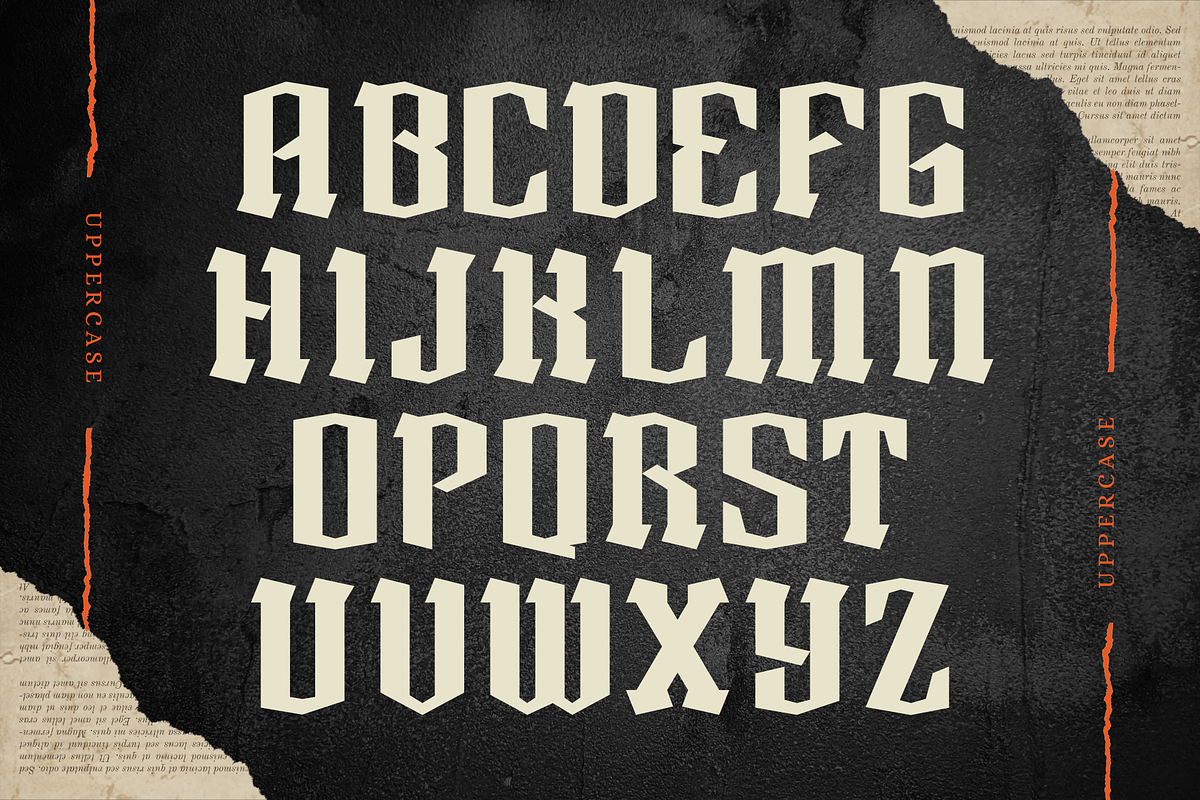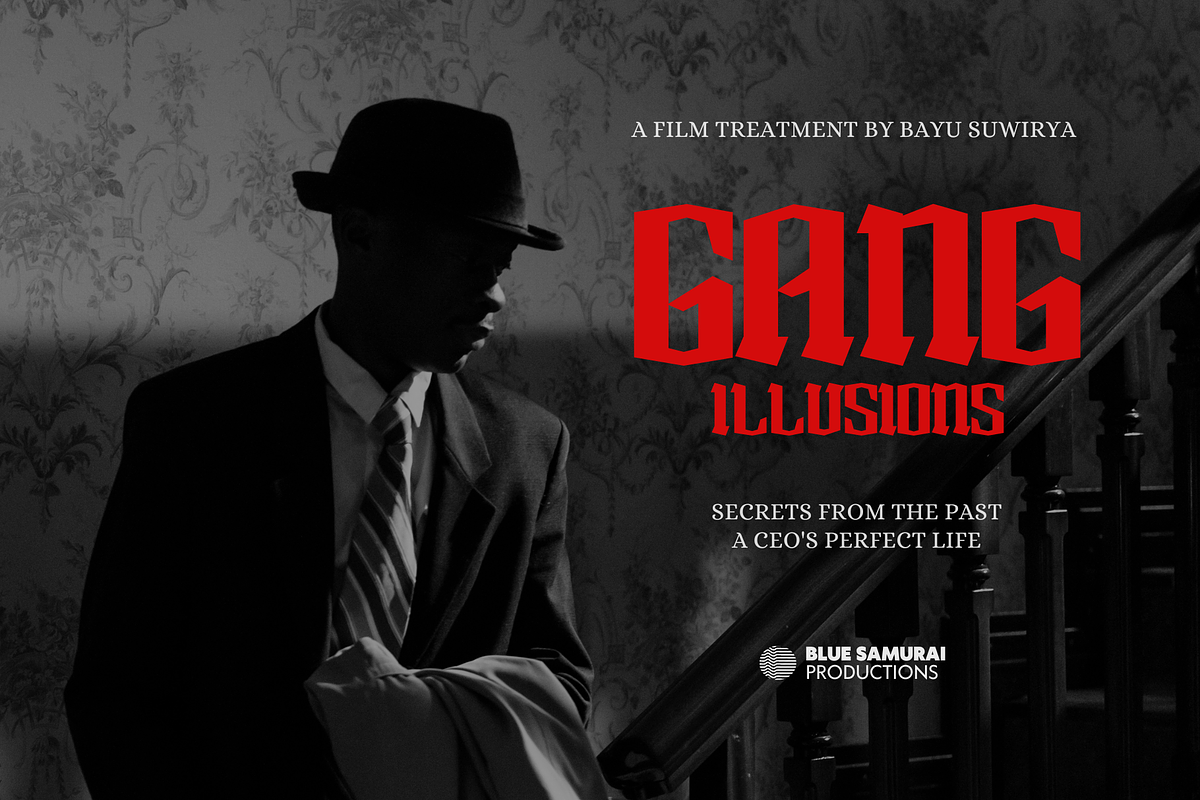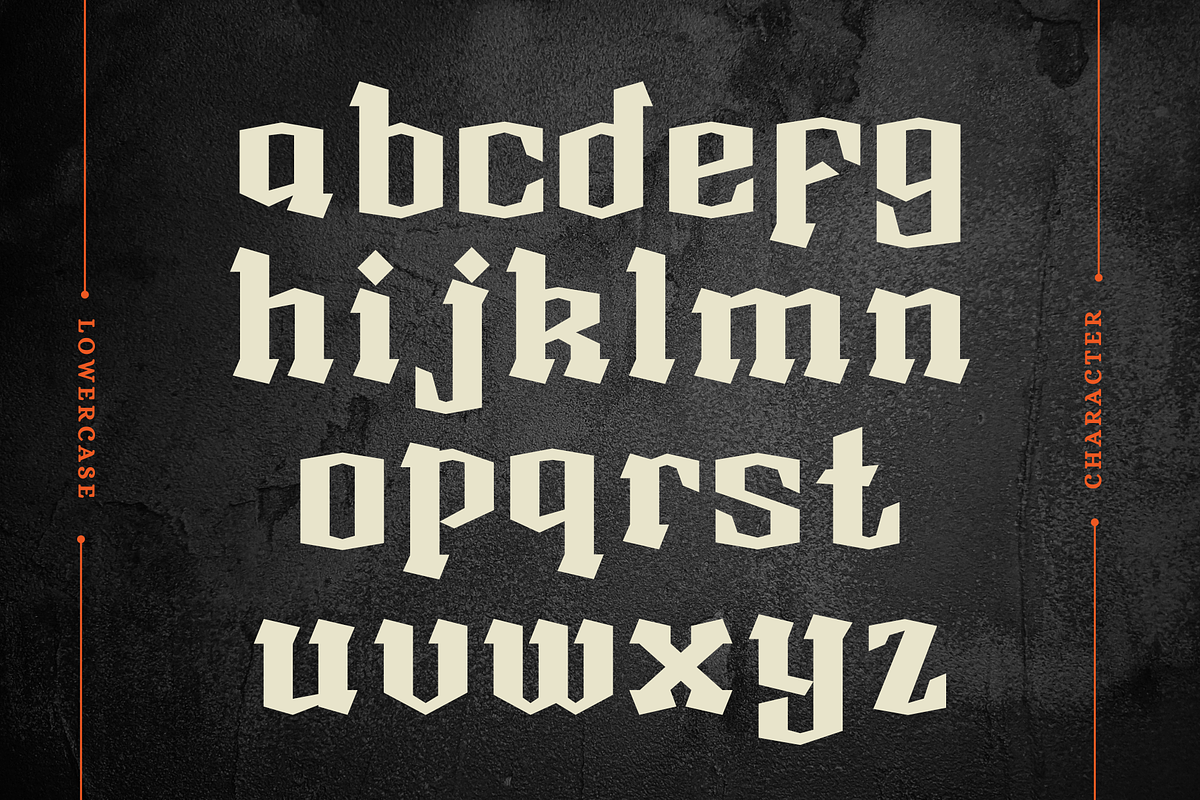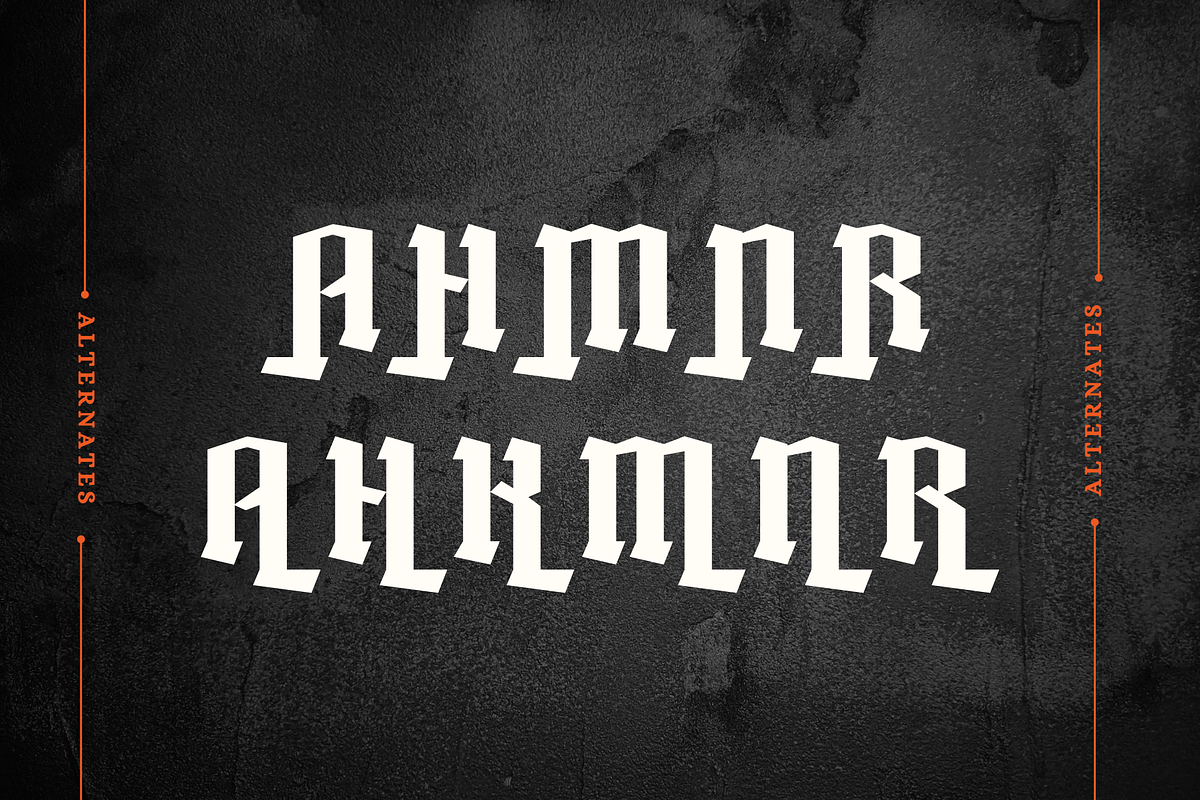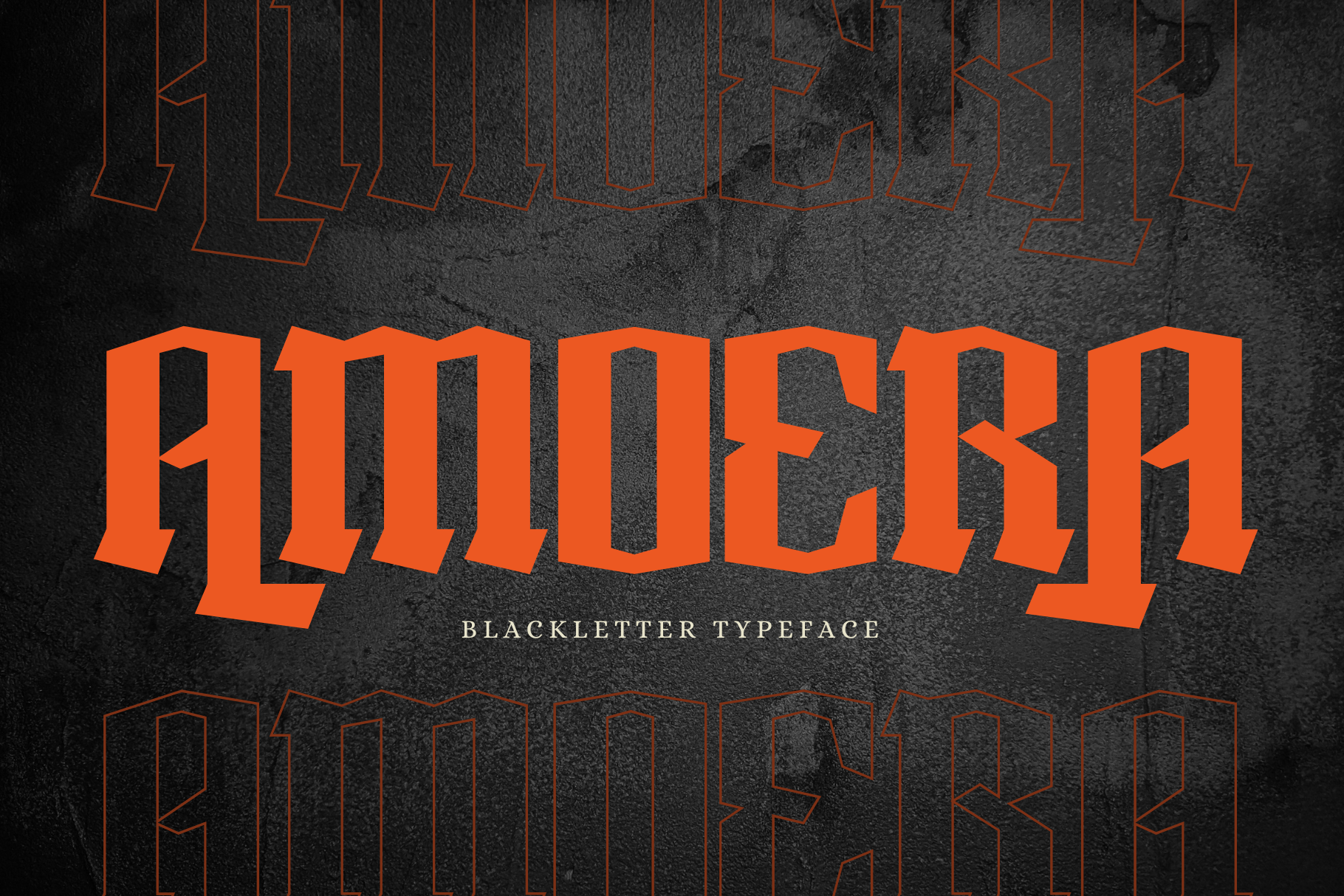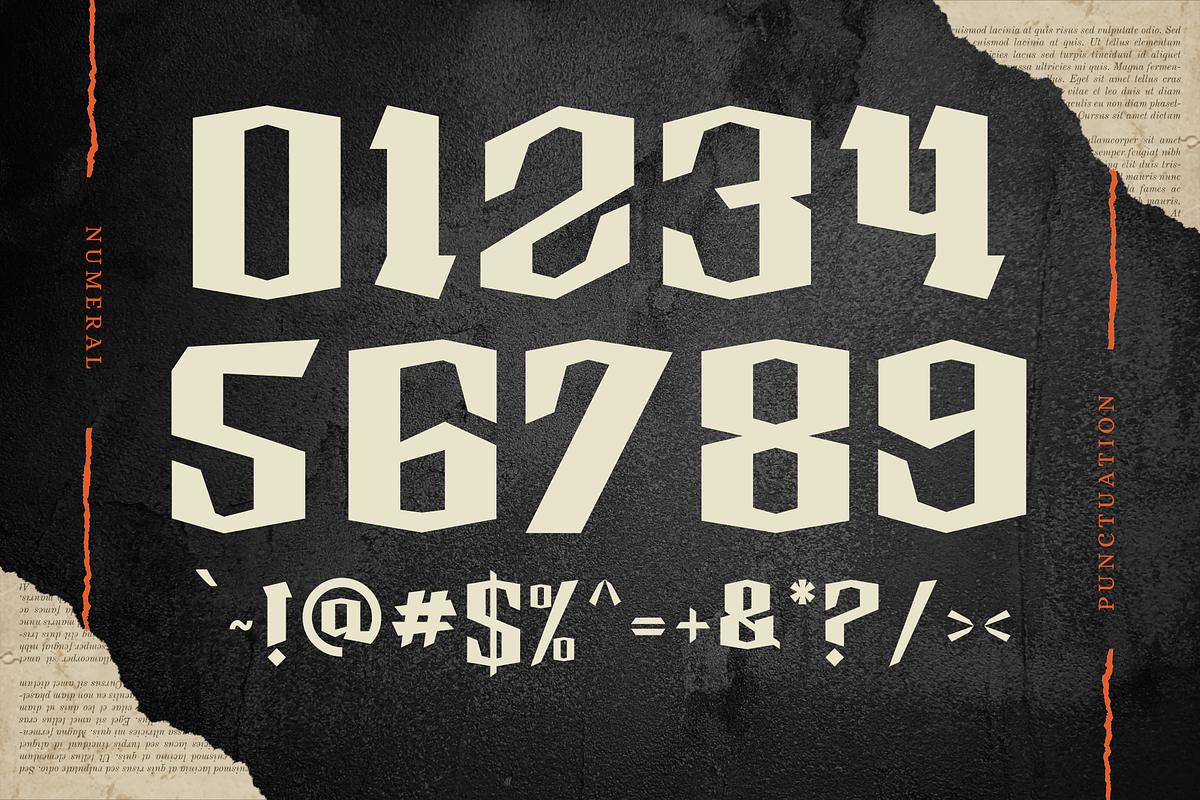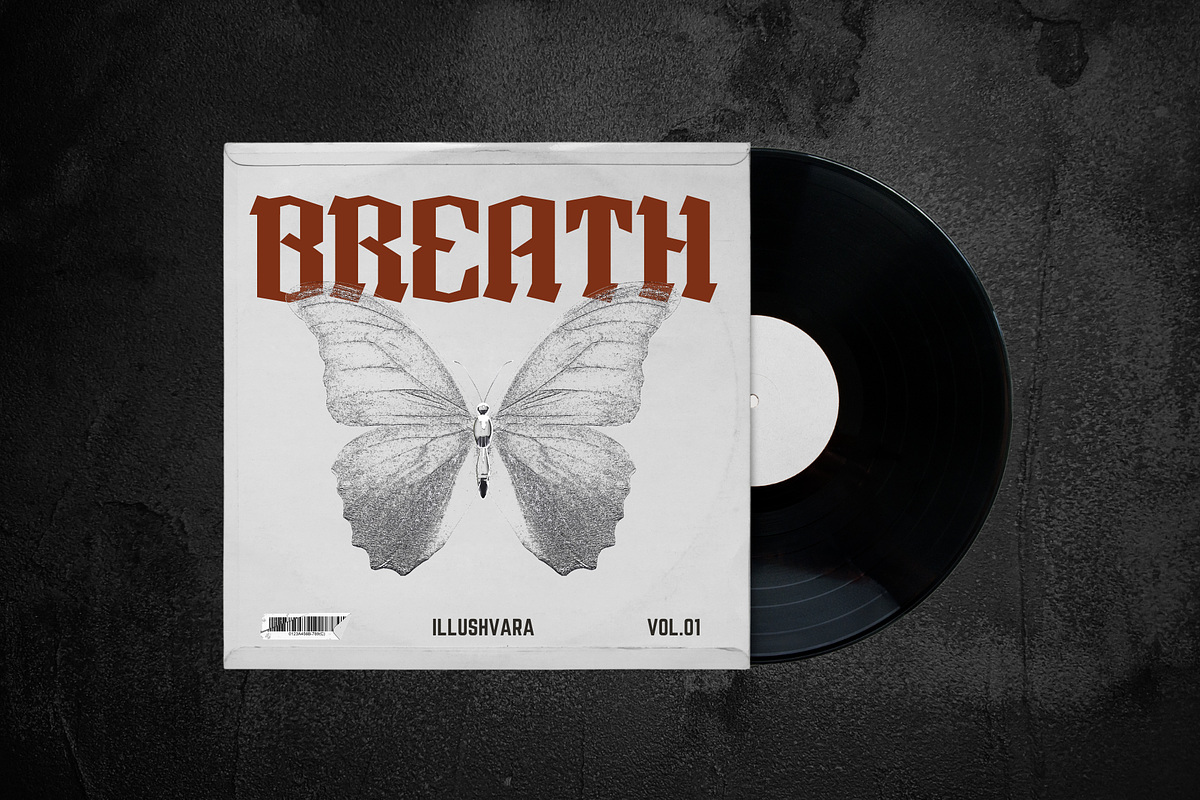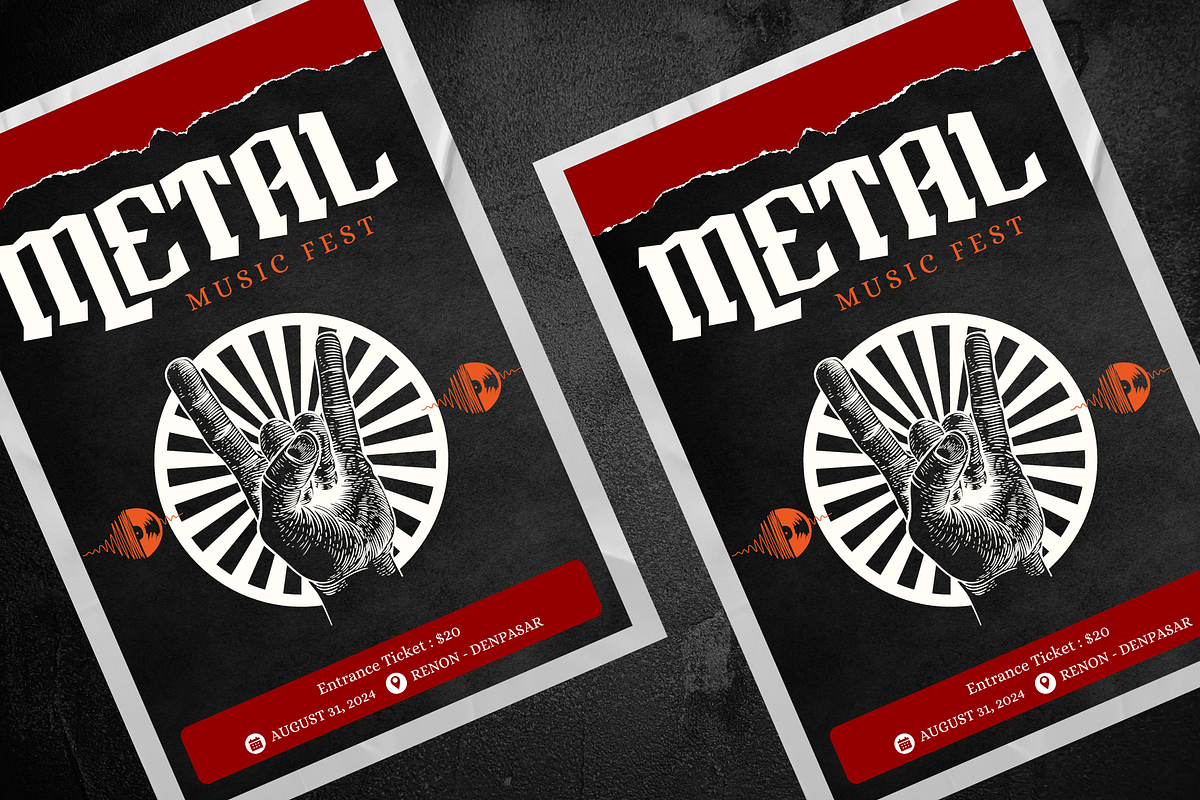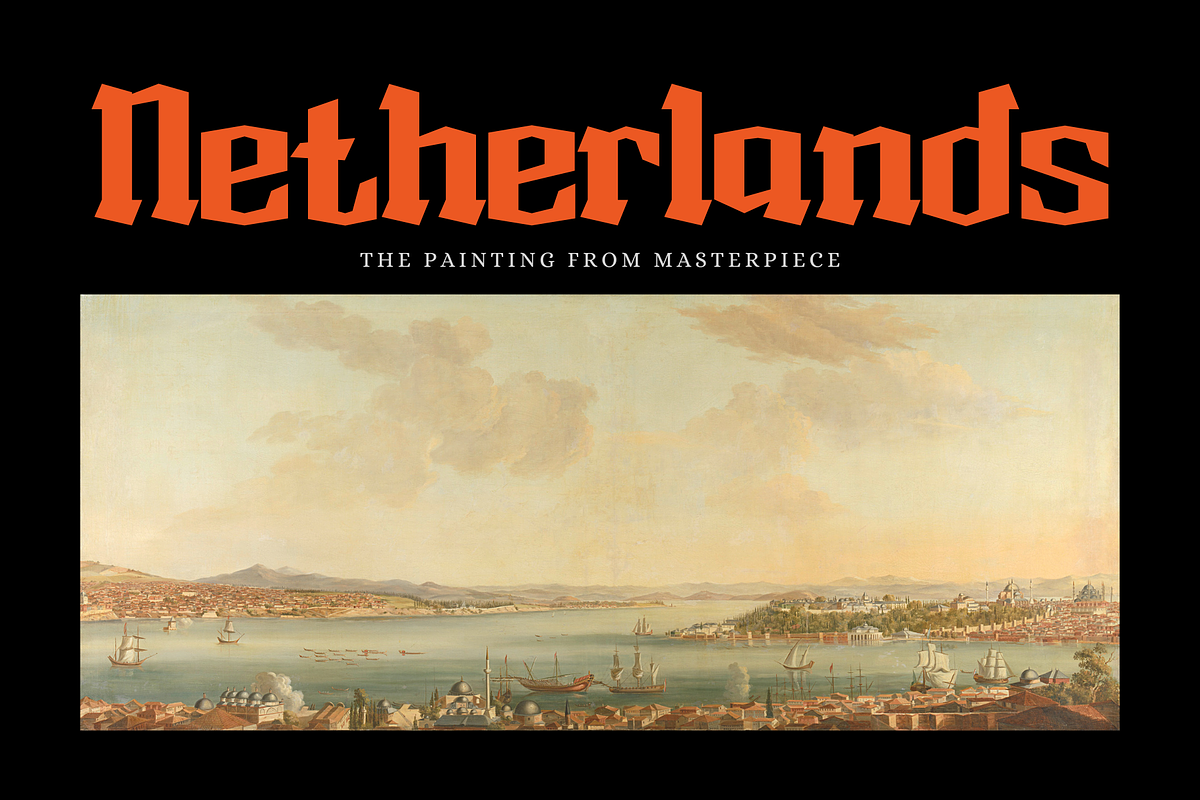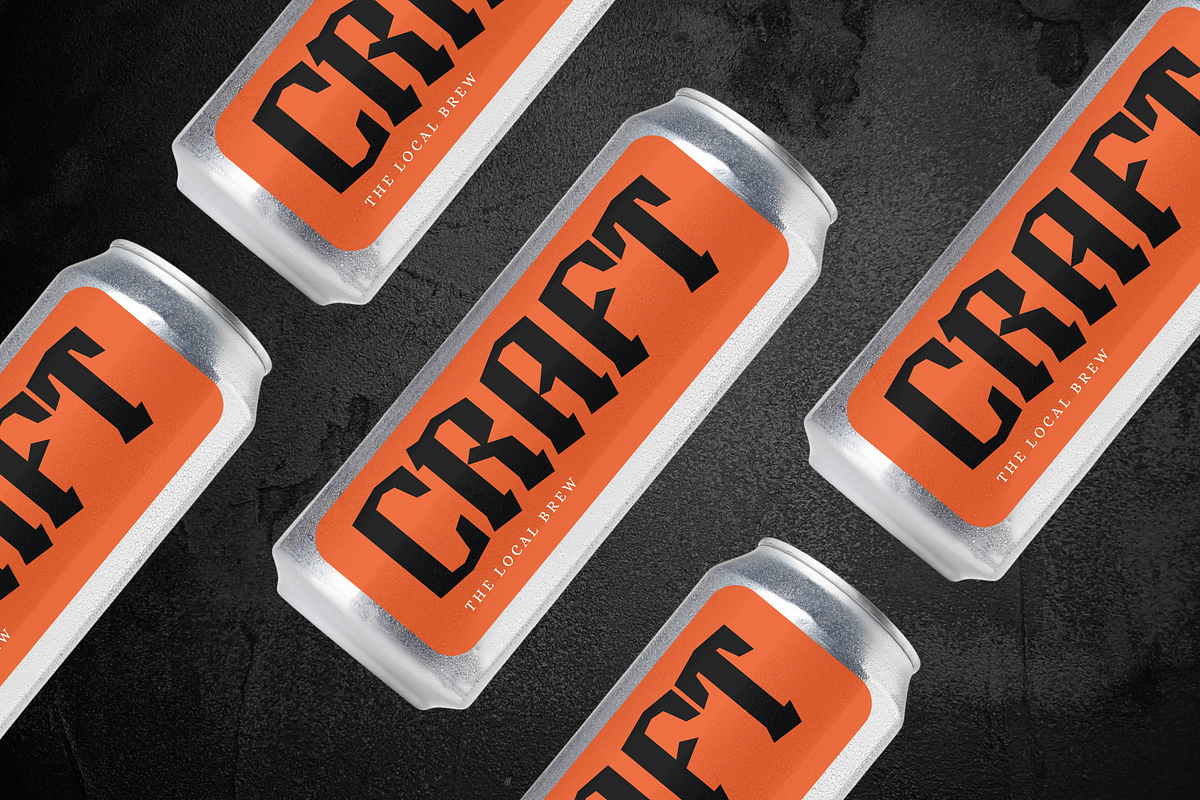
Amoera Blackletter - Logo Font
Say hello to Amoera Blackletter – Logo Font
A simple and modern gothic font inspired by the classic line with the style of the script during the Midle Ages. Recognized for its dramatic and ornate appearance, this typeface features sharp, angular lines and dense, dark strokes that evoke a sense of history, tradition, and formality. Amoera offers beautiful typographic harmony for a diversity of design projects, including logos & branding, social media posts, advertisements & product designs.